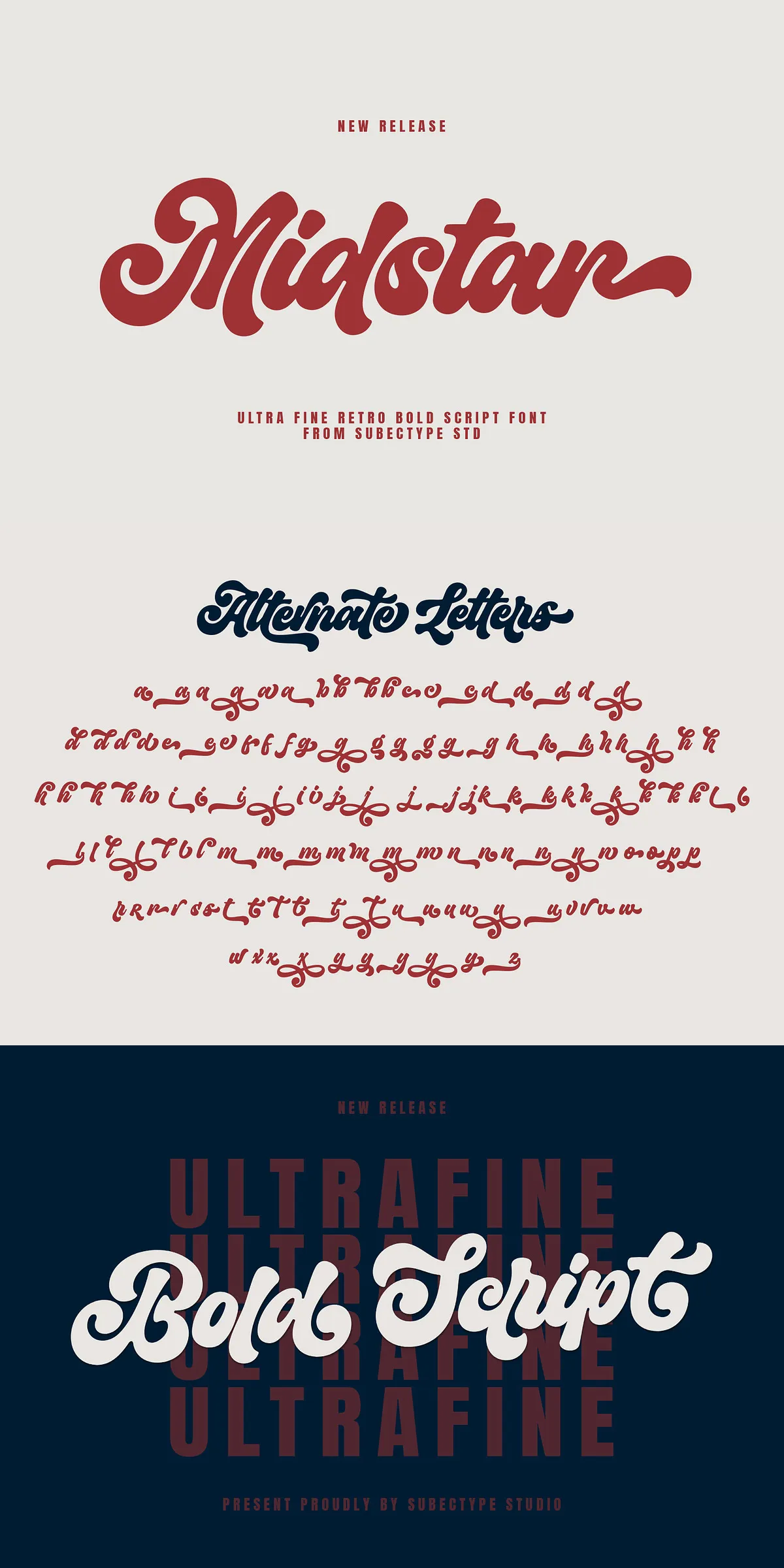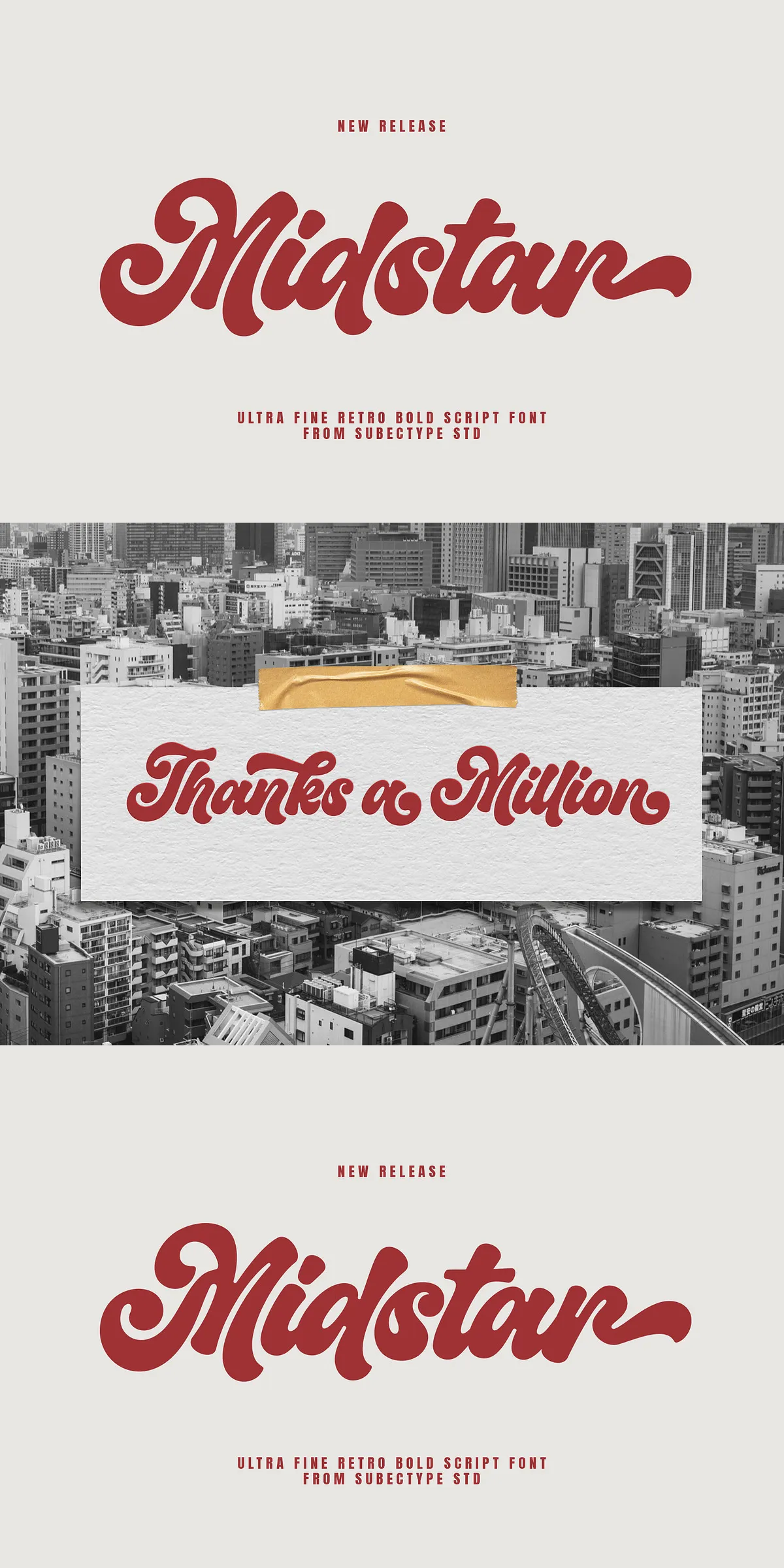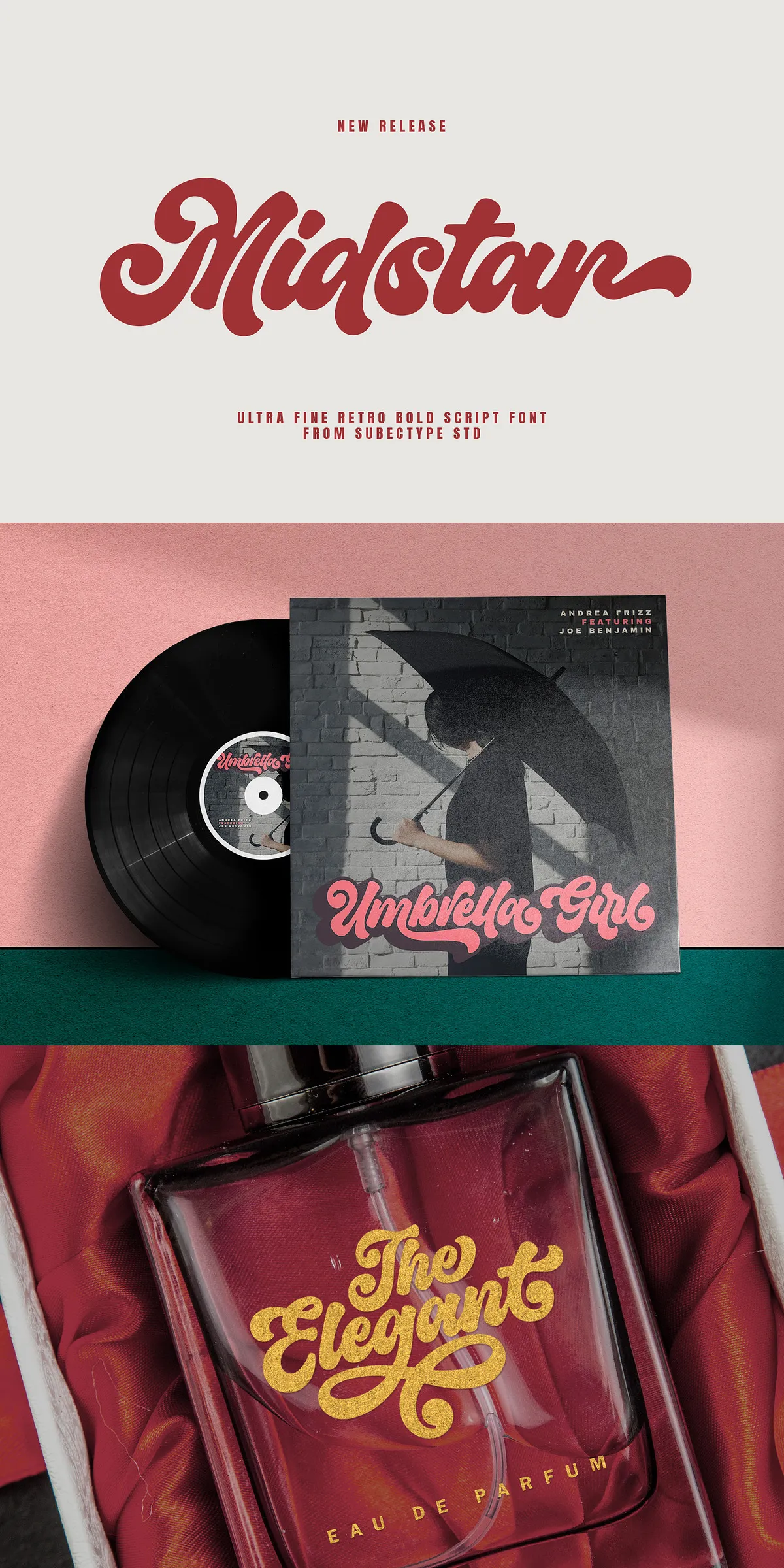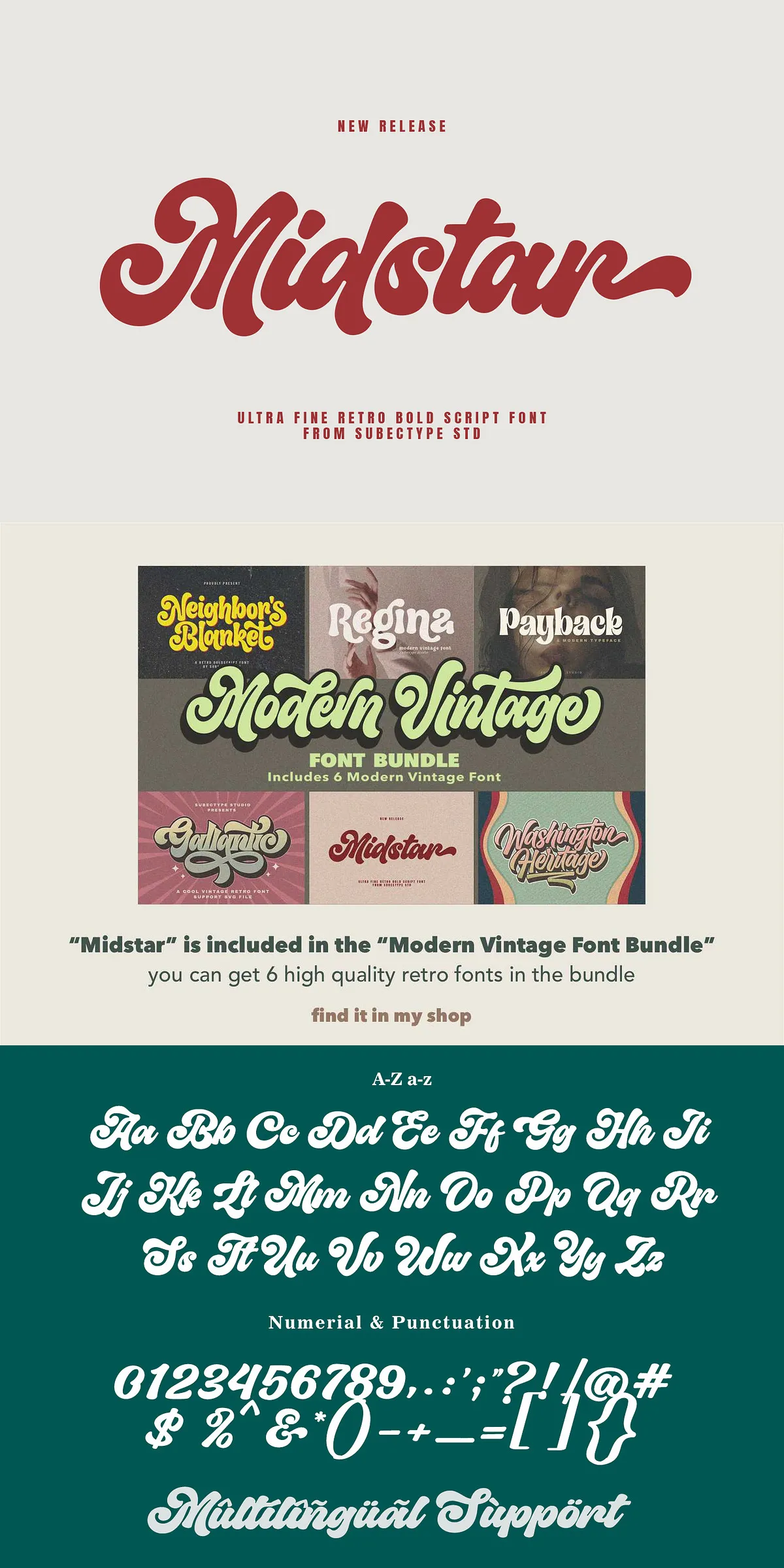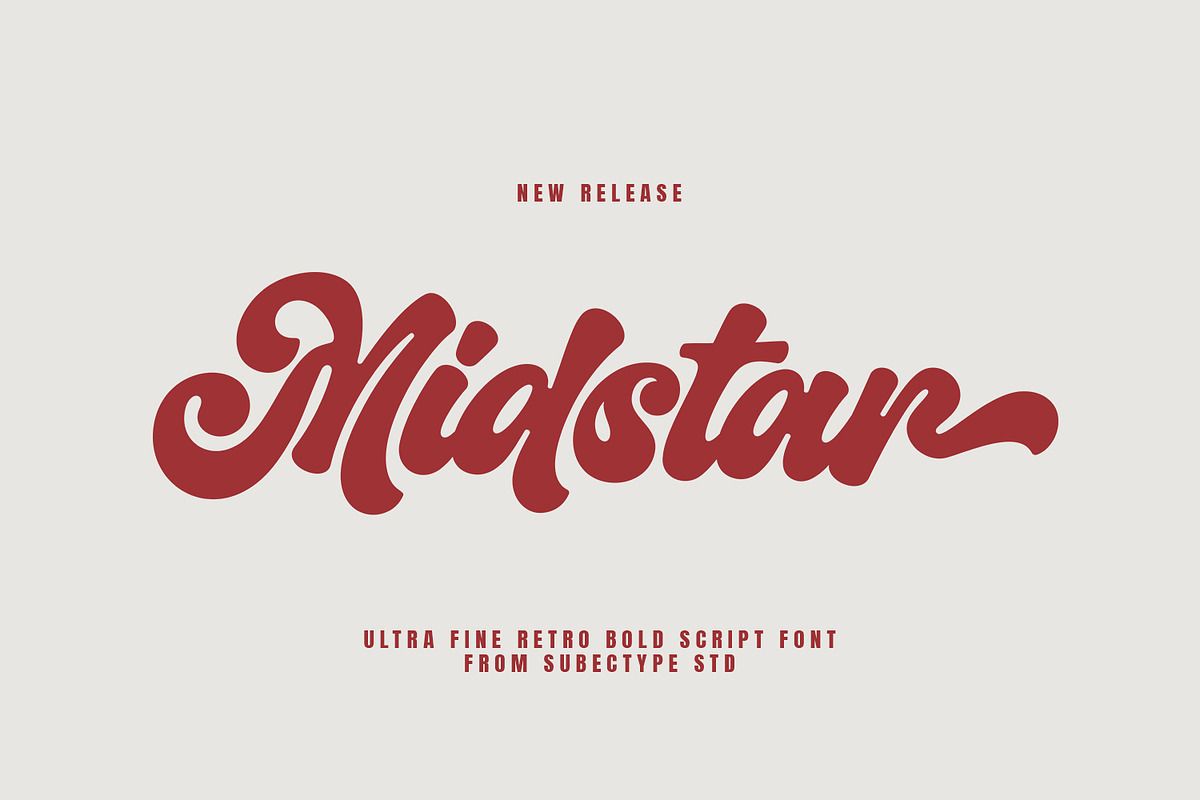
Step back in time with Midstar Font — a dynamic, high-energy vintage retro typeface that captures the bold spirit and timeless flair of 1970s and 1980s design. With its strong contrasts, chunky letterforms, and raw, hand-crafted edge, Midstar isn’t just a font — it’s a statement. Whether you’re reimagining a classic brand, launching a retro-themed product, or creating eye-catching posters and merchandise, Midstar delivers the authentic vibe you need to stand out in a crowded digital world.
Channel the Energy of a Decade: Bold, Unapologetic, and Full of Character
Midstar was meticulously crafted to embody the aesthetic revolution of the 70s and 80s — a time when typography dared to be loud, fun, and unforgettable. It draws direct inspiration from vintage signage, movie posters, record covers, and industrial lettering from that era. The result? A font that feels both nostalgic and refreshingly modern. Its wide strokes, sharp angles, and exaggerated terminals make every word leap off the page with confidence and attitude. This is not background text — this is front-and-center impact.
Unleash Your Creative Power with Every Character
Midstar transforms ordinary messaging into extraordinary visual experiences. Use it to:
- Create bold logotypes and brand identities with instant retro recognition
- Print high-energy t-shirt designs, band merch, and streetwear
- Enhance packaging, signage, and product labels with vintage flair
- Illustrate book covers, zines, and digital content with bold, memorable titles
Rich Feature Set for Designers Who Demand Quality
Midstar isn’t just visually powerful — it’s technically robust, offering a wide range of features to elevate your design workflow and ensure professional results across every platform.
Comprehensive Multilingual Support
Midstar goes beyond basic Latin characters. It supports a full range of international languages including:
- English
- French
- German
- Spanish
- Italian
- Portuguese
- Dutch
- Swedish
- Polish
- And more
Accents, special symbols, and punctuation marks are fully rendered and properly spaced, ensuring flawless typography across global content — perfect for international branding or multilingual campaigns.
Rich Visual Options with Alternates and Ligatures
Maximize your creative expression with an impressive set of stylistic features:
- Alternate letters for unique visual variation and customized layouts
- Ligatures that improve readability and enhance the aesthetic flow between letters
- SVG files for alternative letters — ideal for digital editing, web design, and advanced graphics work
These features give you full control over your design, allowing you to fine-tune details down to the smallest stroke and tail.
No matter if you’re working on a print job, a digital ad, a webpage, or a mobile app, Midstar integrates seamlessly and looks pristine in every context.
Perfect for Brands, Artists, and Designers Who Think Big
From indie startups to creative studios, Midstar empowers projects that want to feel authentic, bold, and timeless. It’s the font choice for:
- Retro branding and revival campaigns
- Music festivals, concerts, and artist merch
- Concept art, gaming, and pop culture visuals
- Book publishing and independent authors seeking a unique cover style
- Any project that needs to shout, “This is special.”
Don’t just follow trends — set them. Midstar Font gives you the tools to create designs with soul, character, and a clear connection to a golden era of visual culture. It’s not just a font; it’s a creative companion for anyone who believes design should be bold, expressive, and unforgettable.